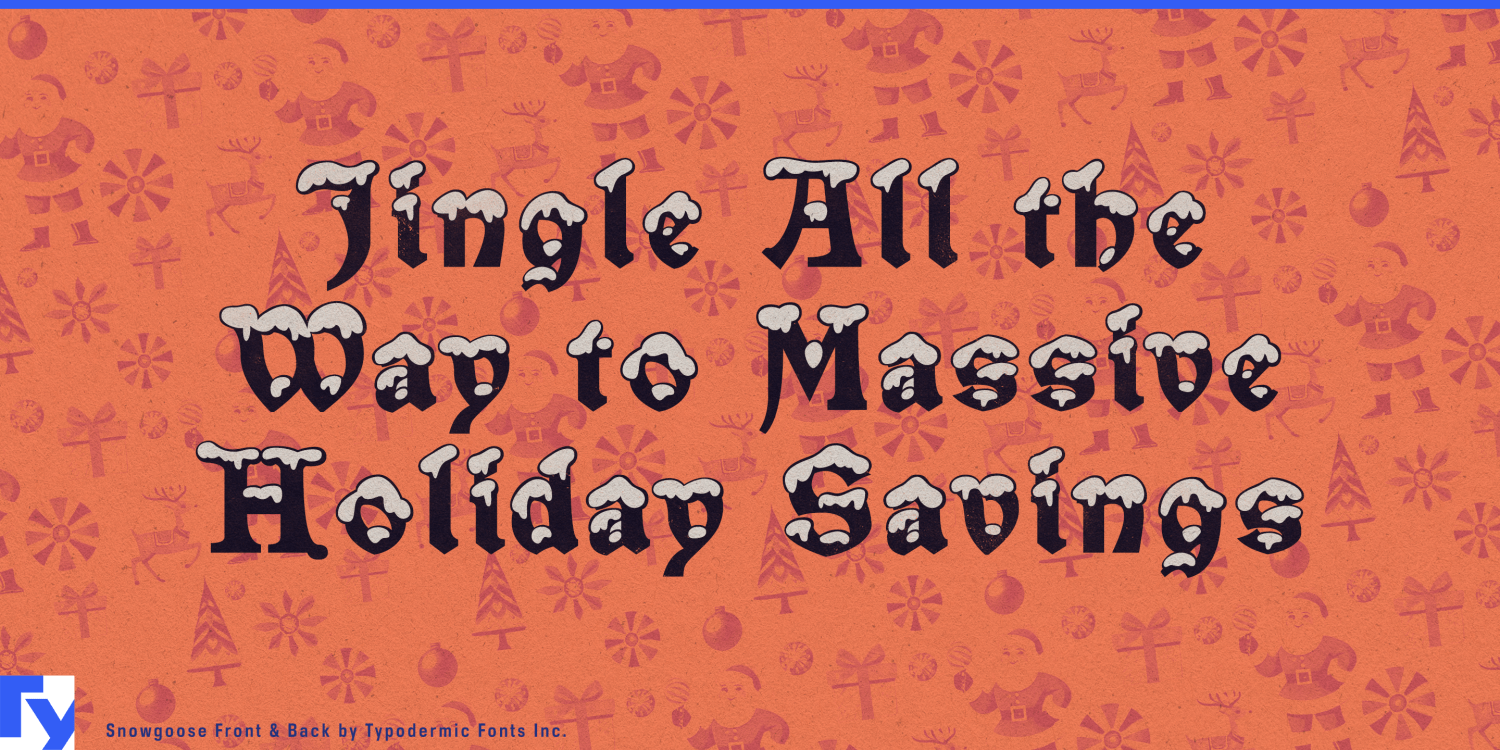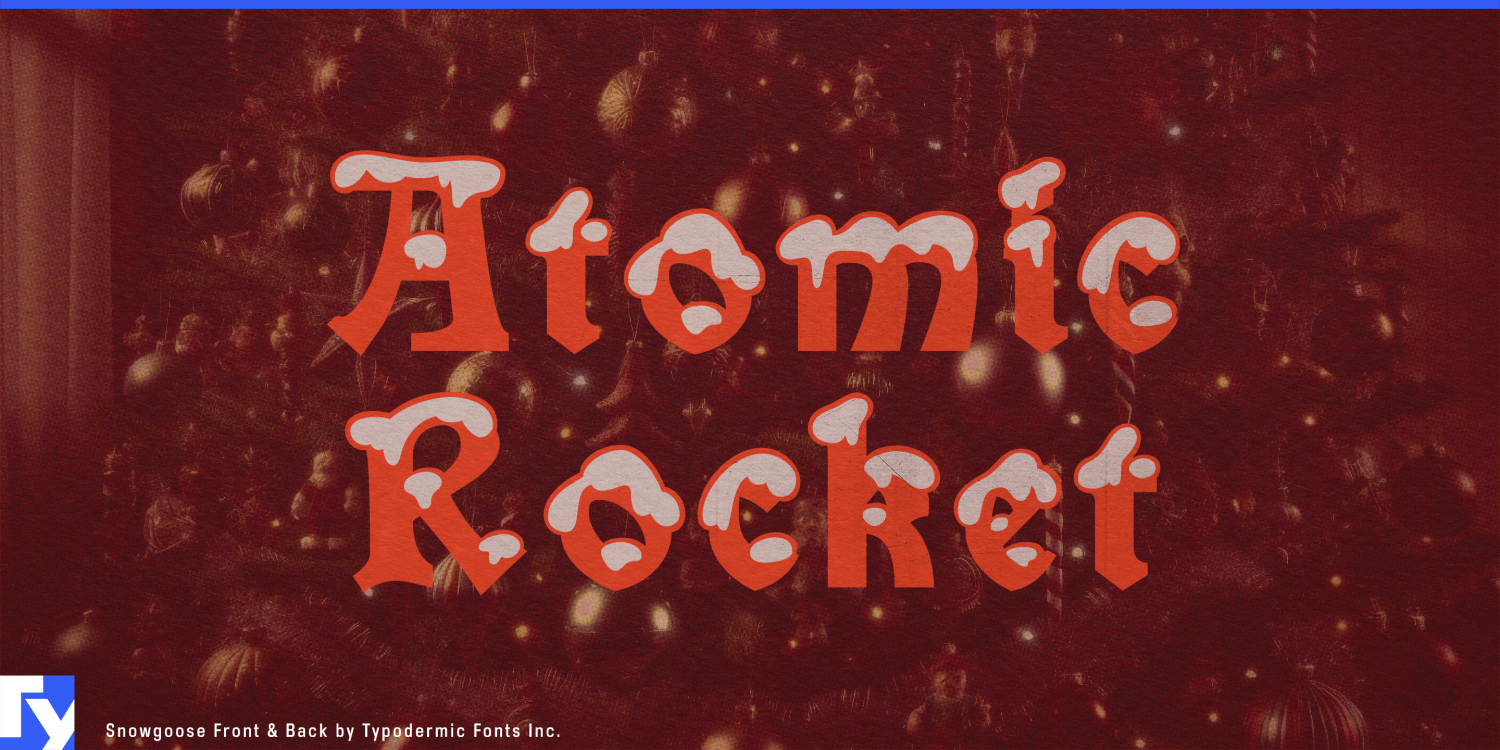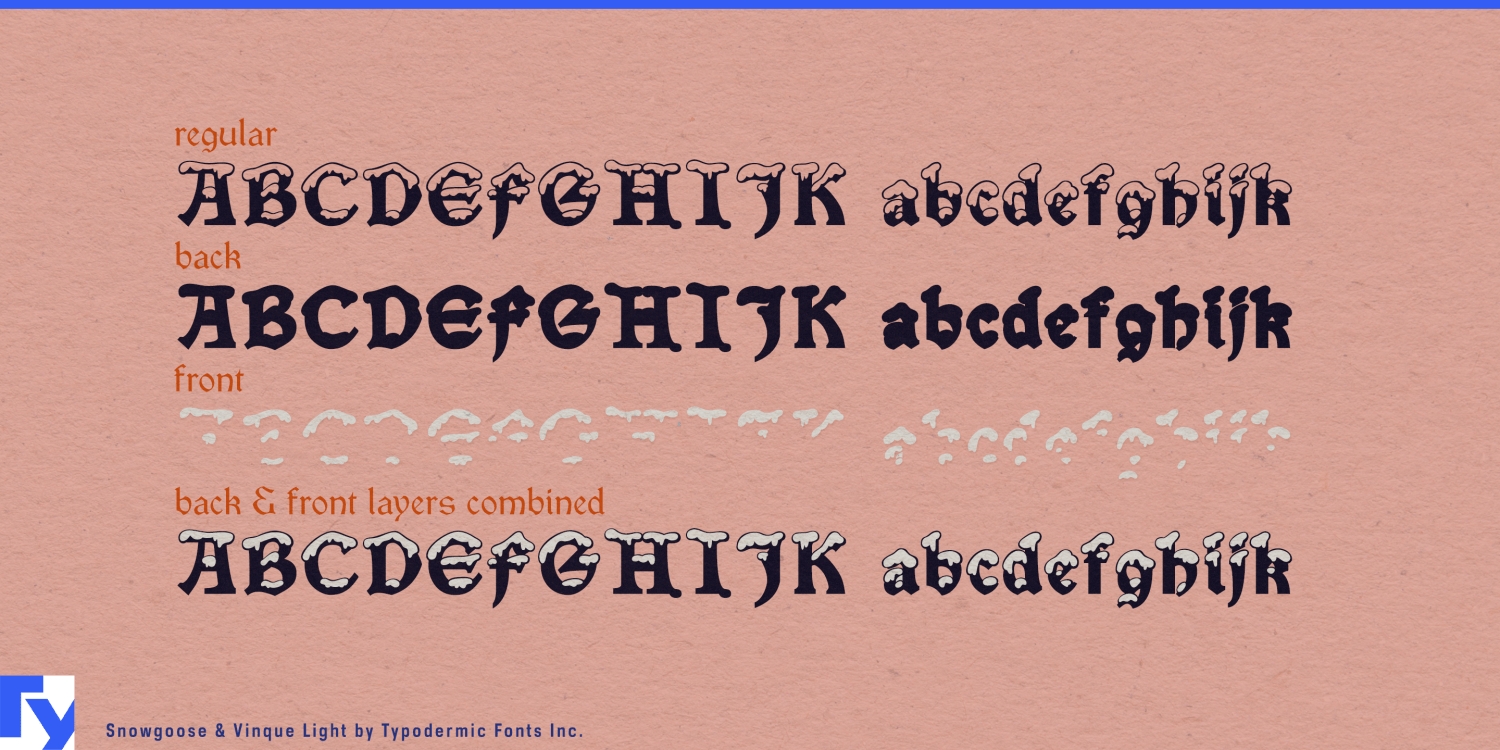
About Snowgoose
As winter’s chill sets in, Snowgoose emerges as the quintessential Christmas typeface for discerning graphic designers. This innovative typeface transforms ordinary letterforms into glistening, snow-capped wonders, infusing your designs with a touch…